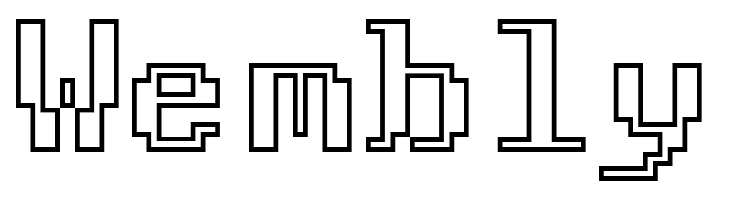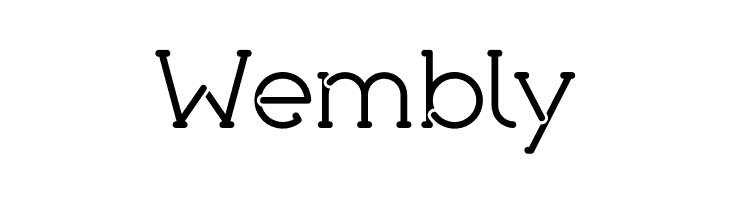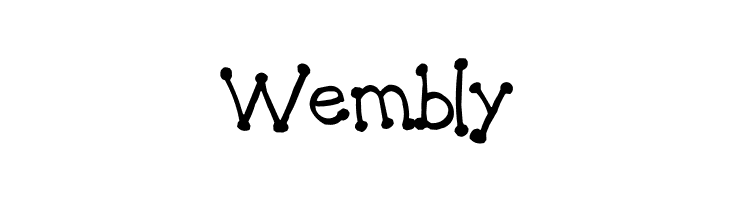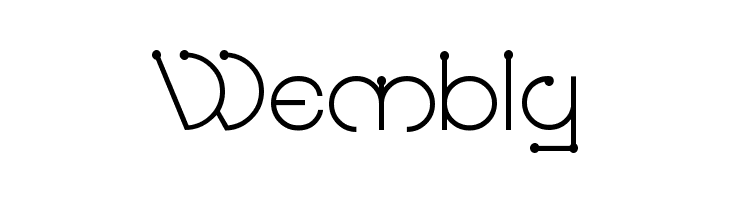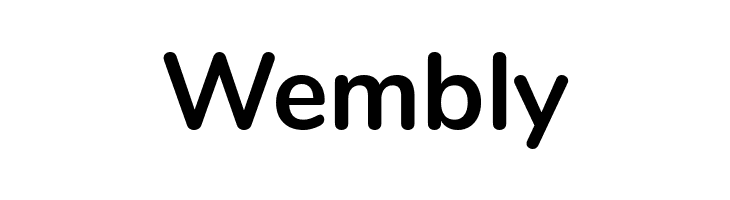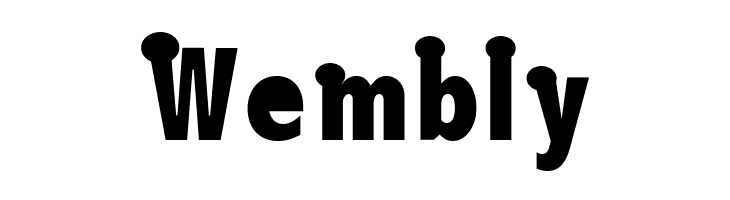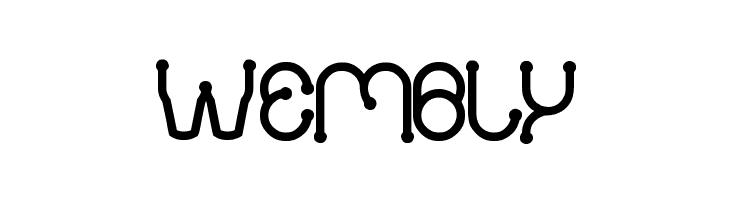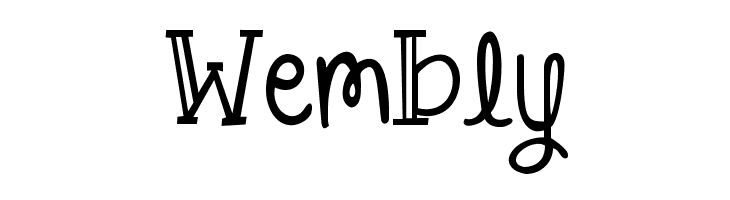
( Fonts by bob istheowl http://luc.devroye.org/bobistheowl.html )
A pixelated, retro-style font with bold outlines and a uniform height.
( Fonts by Loraine Wauer Ferus www.billybear4kids.com )
A playful, whimsical font with rounded terminals and dot accents.
( Font by kingthingsfonts.co.uk )
A playful and modern font with rounded terminals and consistent stroke width.
A modern, bold sans-serif font with rounded terminals and excellent readability.
A playful, looping font with bold, rounded terminals and smooth curves.
( Fonts by Kimberly Geswein - kimberlygeswein.com )
A playful and whimsical font with rounded terminals and a hand-drawn feel.
( Fonts by Goma Shin - Shintarou Nakayama www.geocities.jp/gomarice_font/ )
A bold, playful Western-style font with rounded, thick strokes and bulbous terminals.
( Fonts by Khrys Bosland )
A playful, decorative font with arrow-like serifs and rounded terminals.
( Fonts by Thais Trizoli - www.behance.net/thaistrizoli )
An artistic font with fluid, droplet-like terminals and elegant curves.
( Fonts by www.kimberlygeswein.com - Kimberly Geswein )
A playful and whimsical font with bold strokes and rounded terminals.
A bold, playful font with rounded terminals and consistent spacing.
A modern sans-serif font with clean lines and unique curved terminals.
Modern geometric sans-serif with rounded terminals and uniform strokes.
( Fonts by Shara Weber )
A playful font with rounded dot-like terminals and consistent stroke width.
( Fonts by Shara Weber )
A playful font with rounded terminals and a modern, friendly appearance.
A playful, decorative font with rounded terminals and consistent stroke width.
A playful, modular font with rounded terminals and a digital-inspired design.
A playful, hand-drawn font with rounded terminals and irregular strokes.
A clean, modern sans-serif font with rounded terminals and uniform stroke width.
A modern sans-serif font with rounded terminals and balanced proportions.
A modern, italic sans-serif font with smooth curves and rounded terminals.
A clean, modern monospaced font ideal for coding and technical documentation.